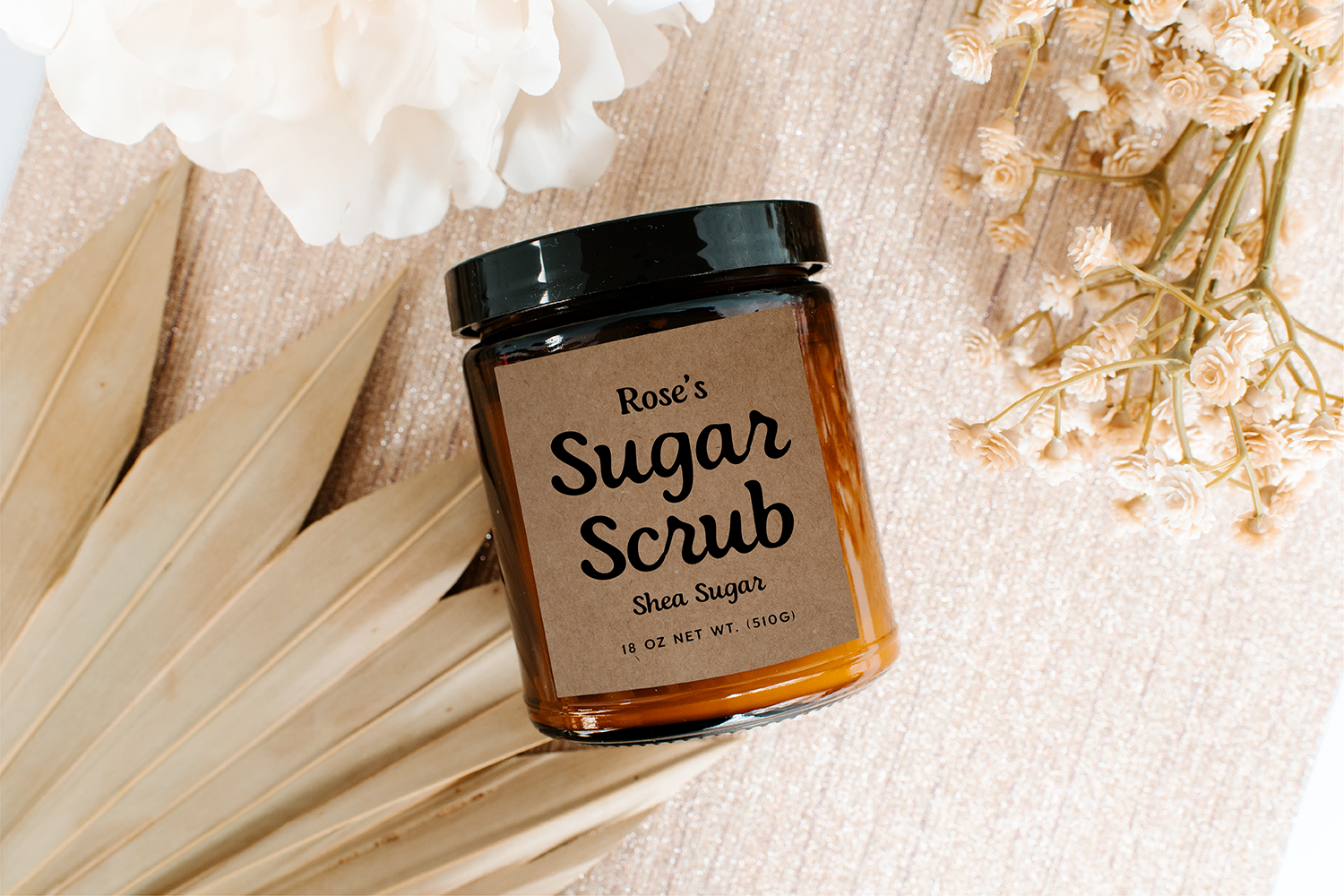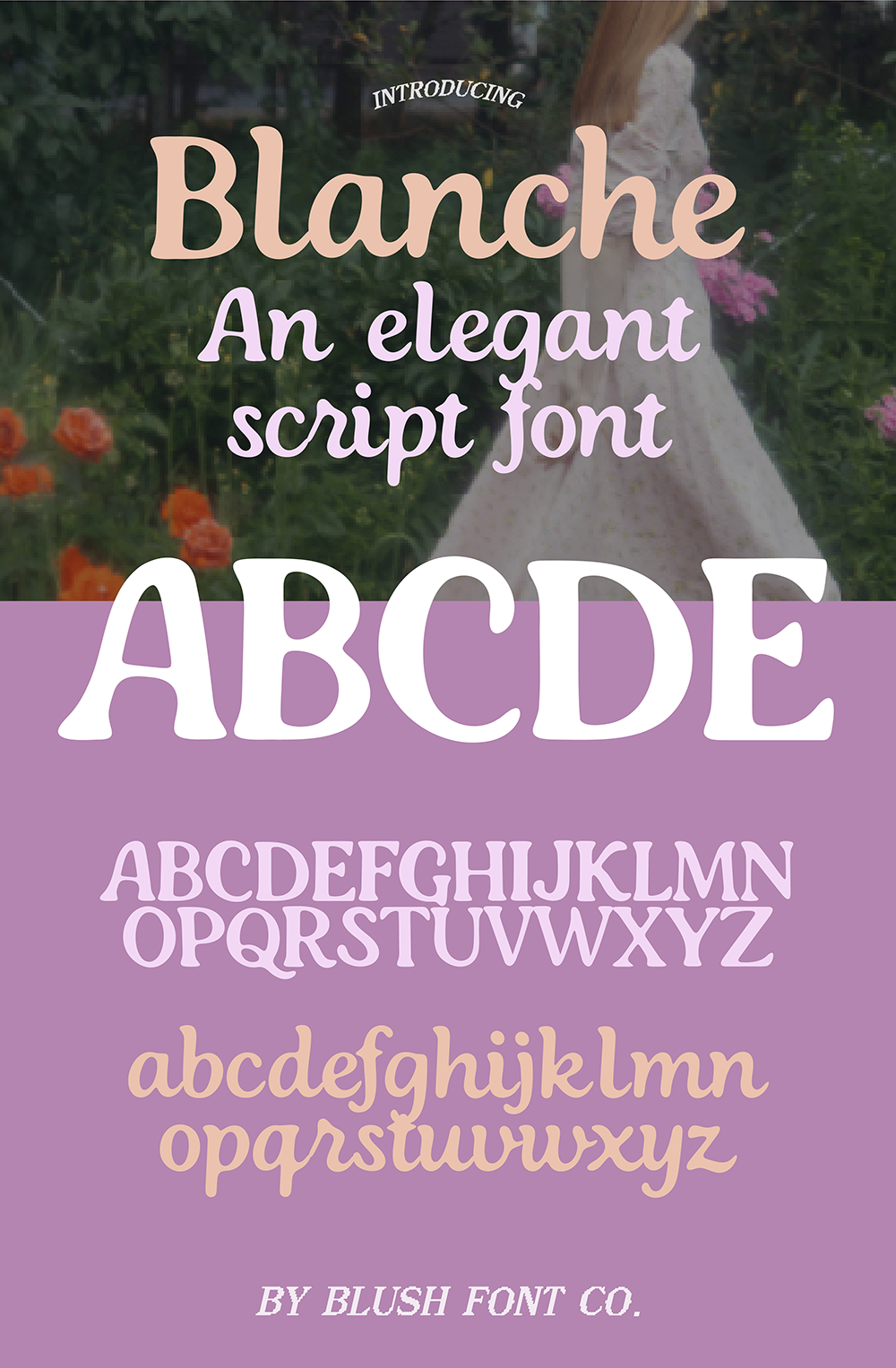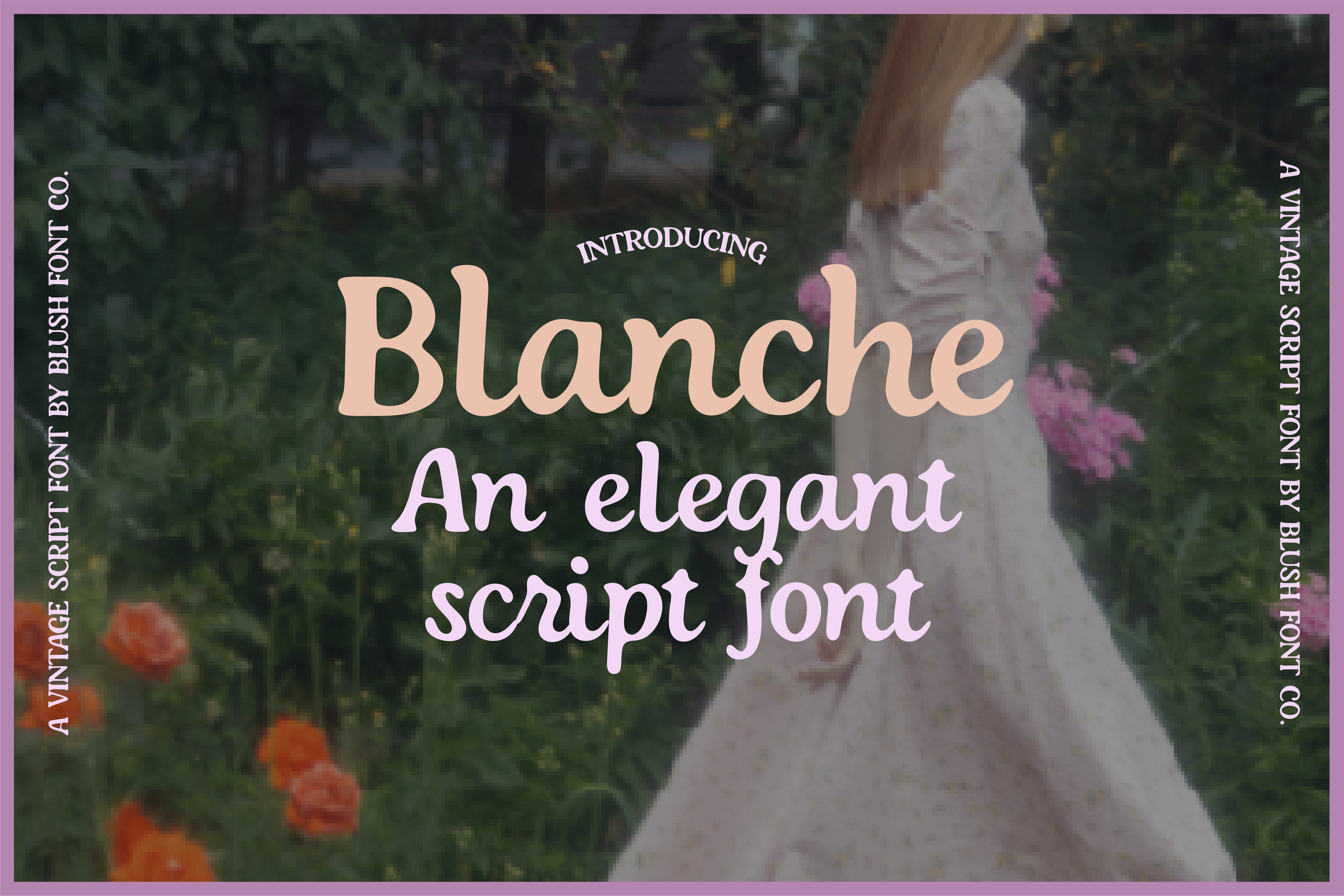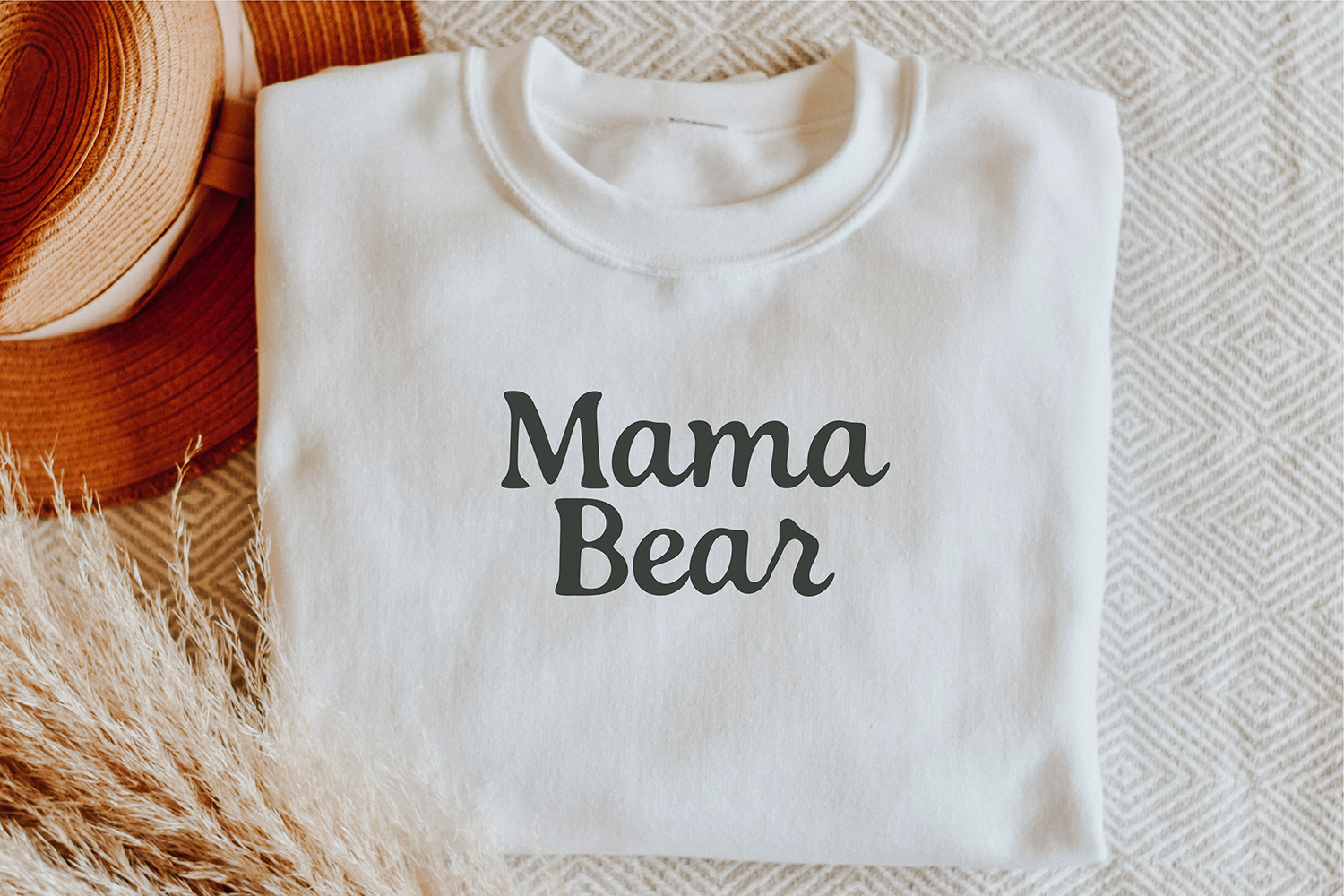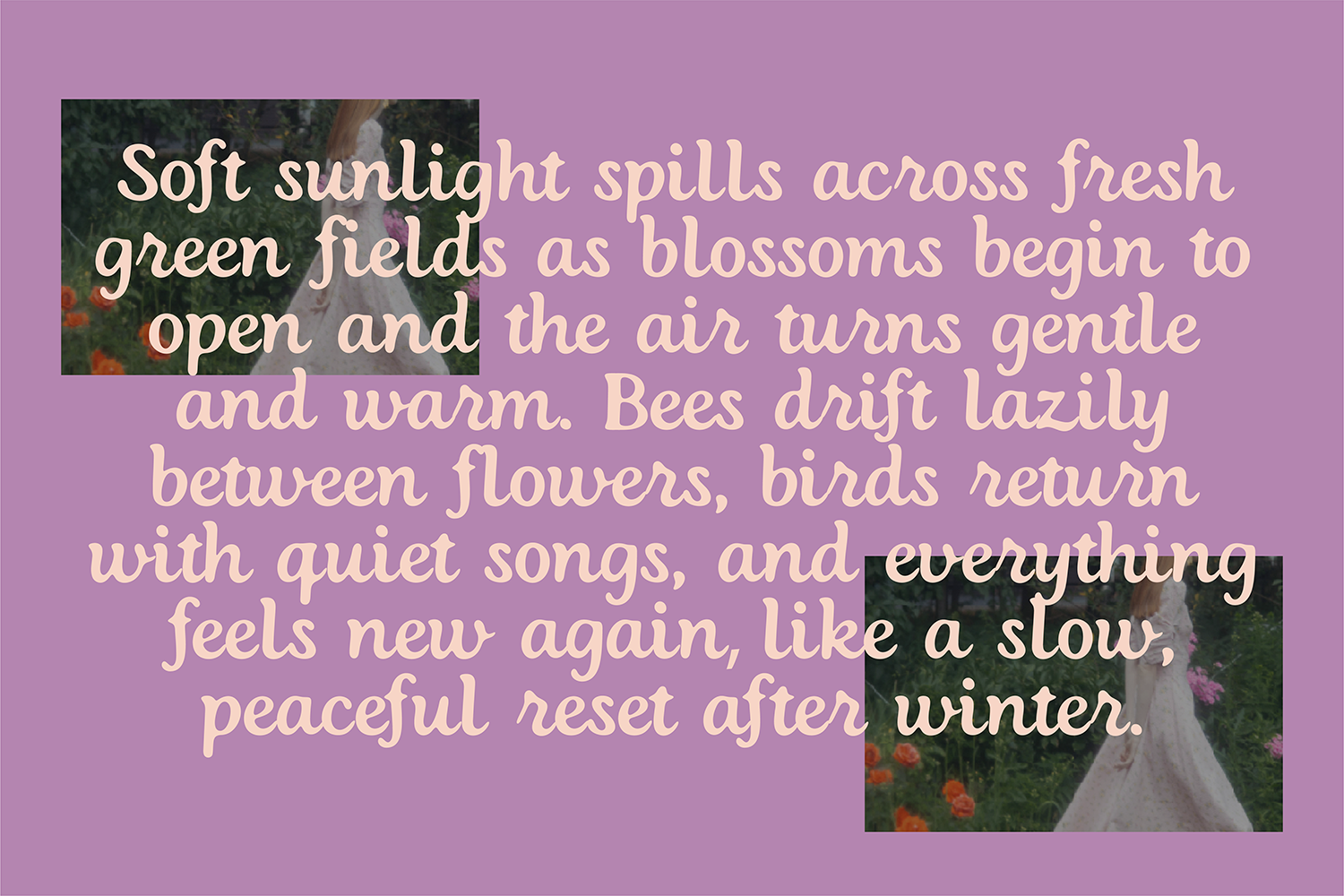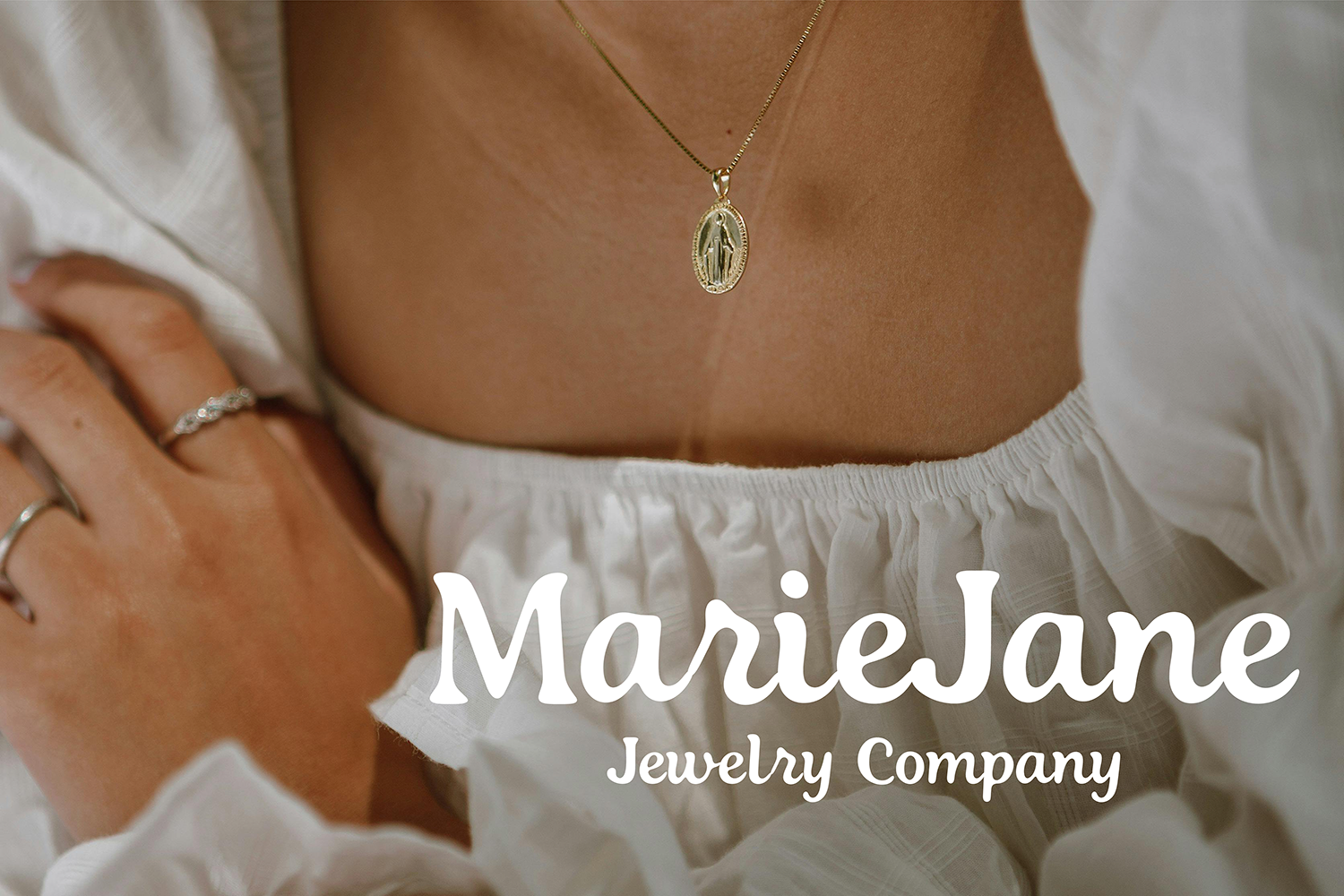
Vintage Elegant Script Font – OTF Calligraphy Typeface for Cricut, Canva, Procreate & More
Elevate your designs with this vintage elegant script font, a timeless handwritten calligraphy typeface designed for creatives, small businesses, and makers. This .OTF script font features flowing curves, soft romantic strokes, and a classic vintage feel. Perfect for adding a touch of sophistication to any project.
Use this elegant script font for:
• Wedding invitations and save the dates
• Logos and branding projects
• Social media graphics and Instagram posts
• T-shirt designs and Cricut crafts
• Stickers, decals, and vinyl cutting
• Digital planners and GoodNotes layouts
• Procreate lettering and iPad design
• Packaging, labels, and small business branding
Designed with versatility in mind, this vintage calligraphy font works beautifully for both digital and physical products. Whether you're creating a feminine logo, romantic quote design, or luxury branding, this font delivers a polished, high-end look.
Font Features:
• Uppercase & lowercase letters
• Numbers & punctuation
• Smooth, natural script flow
This handwritten script font blends modern usability with a classic vintage aesthetic, making it perfect for coquette, cottagecore, feminine, and luxury-inspired designs.